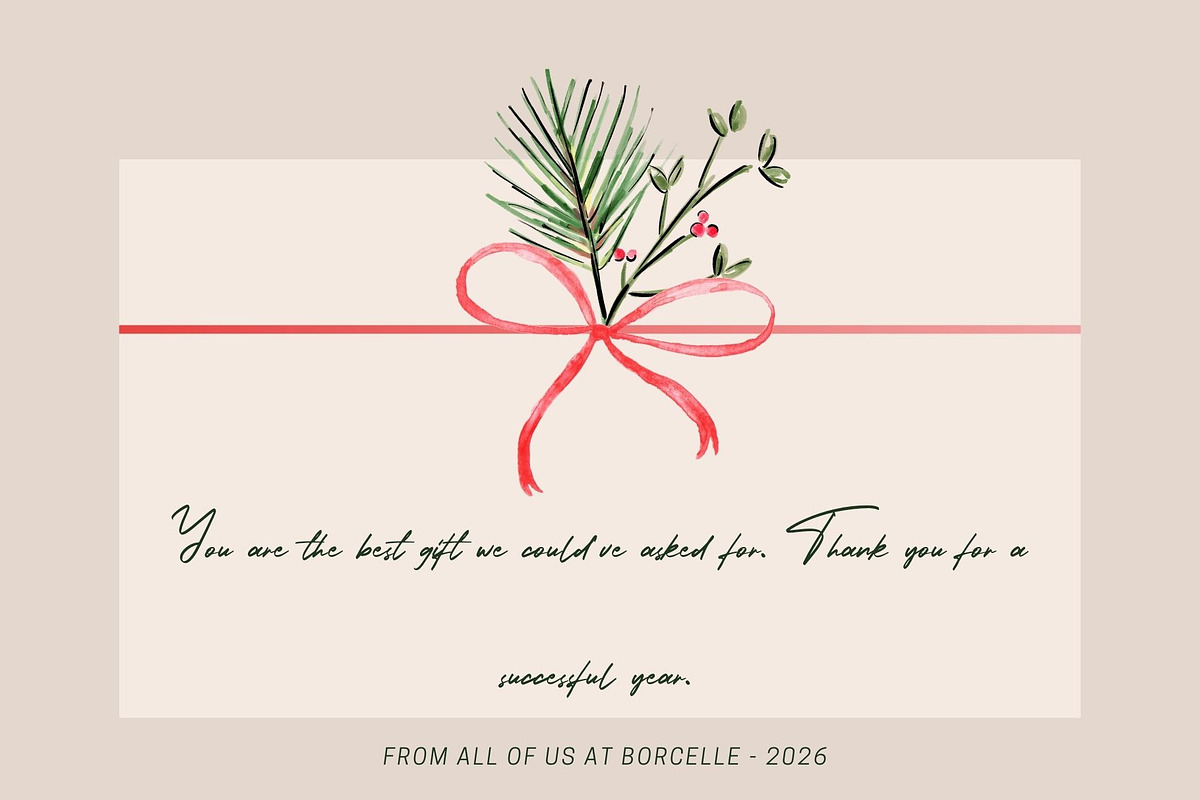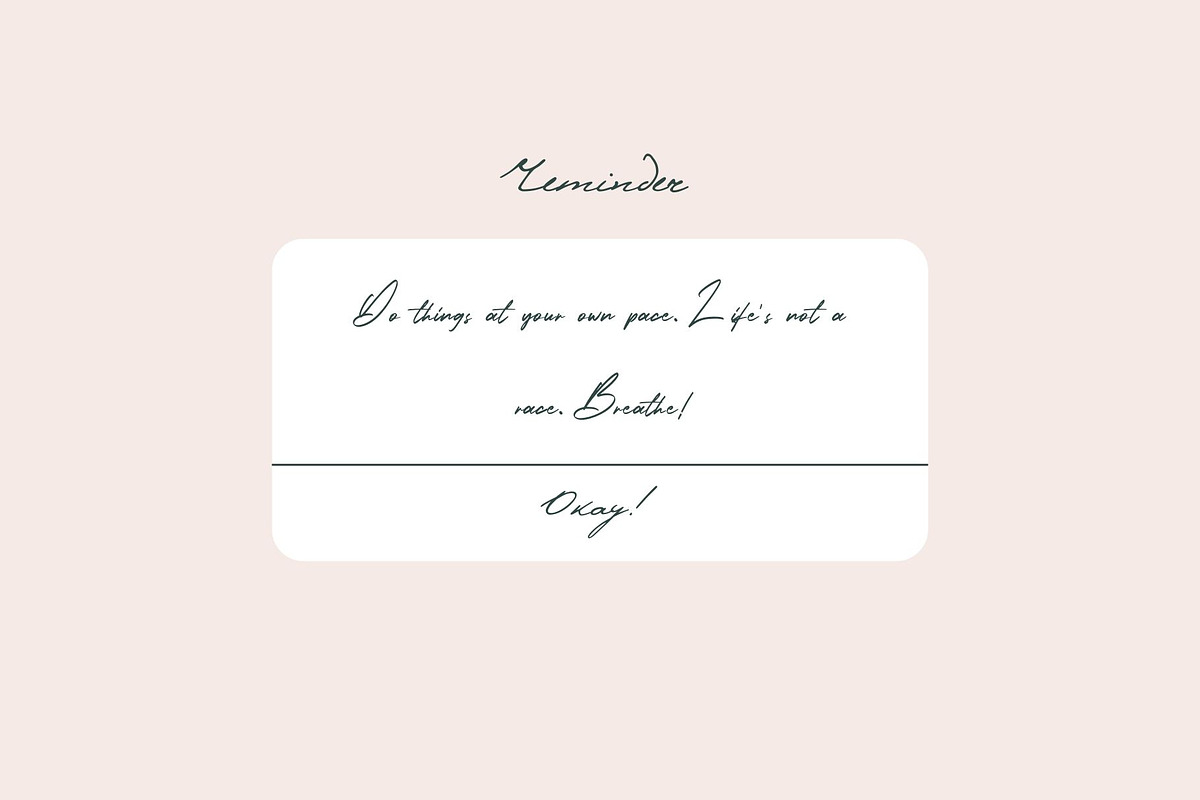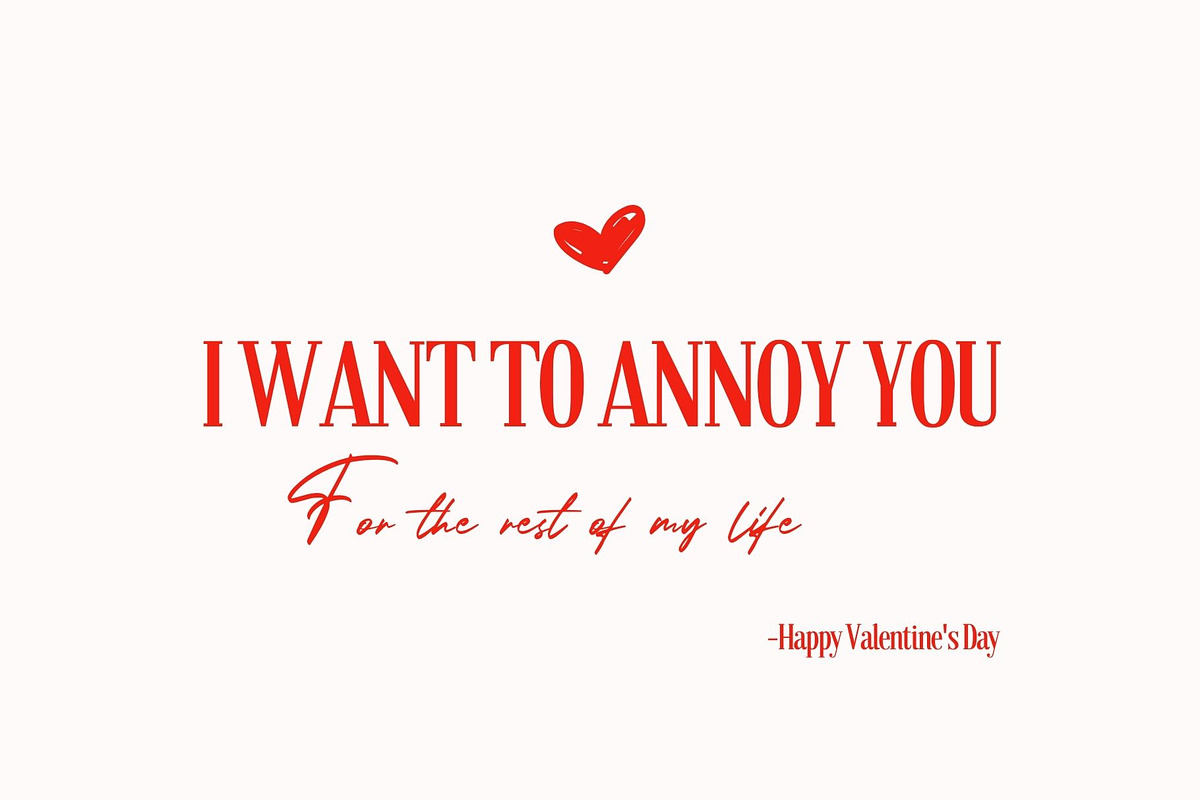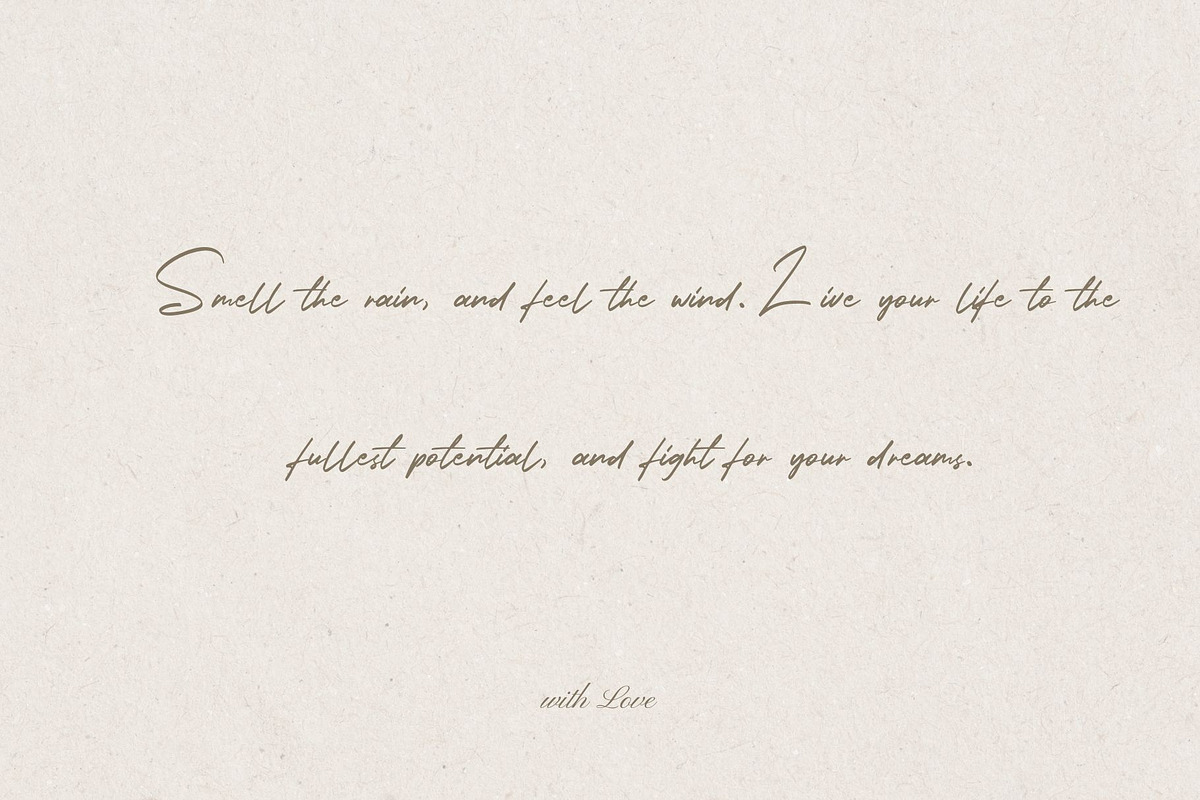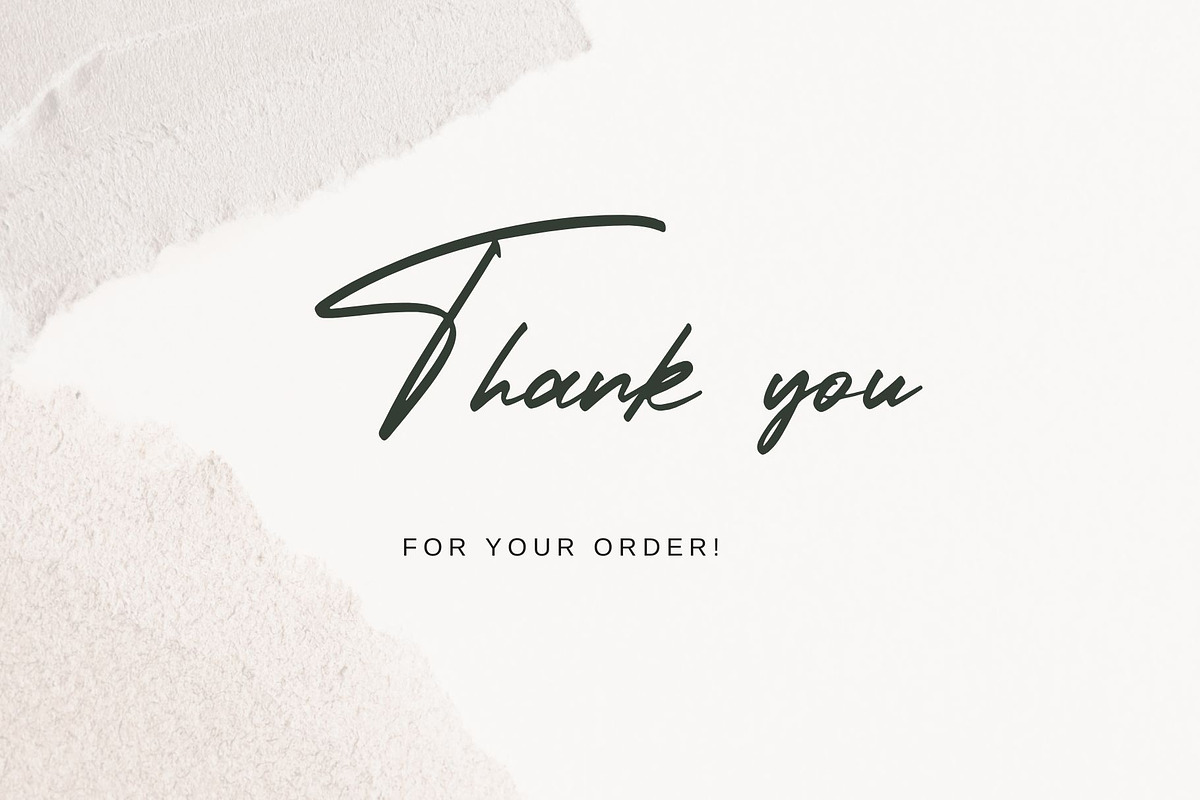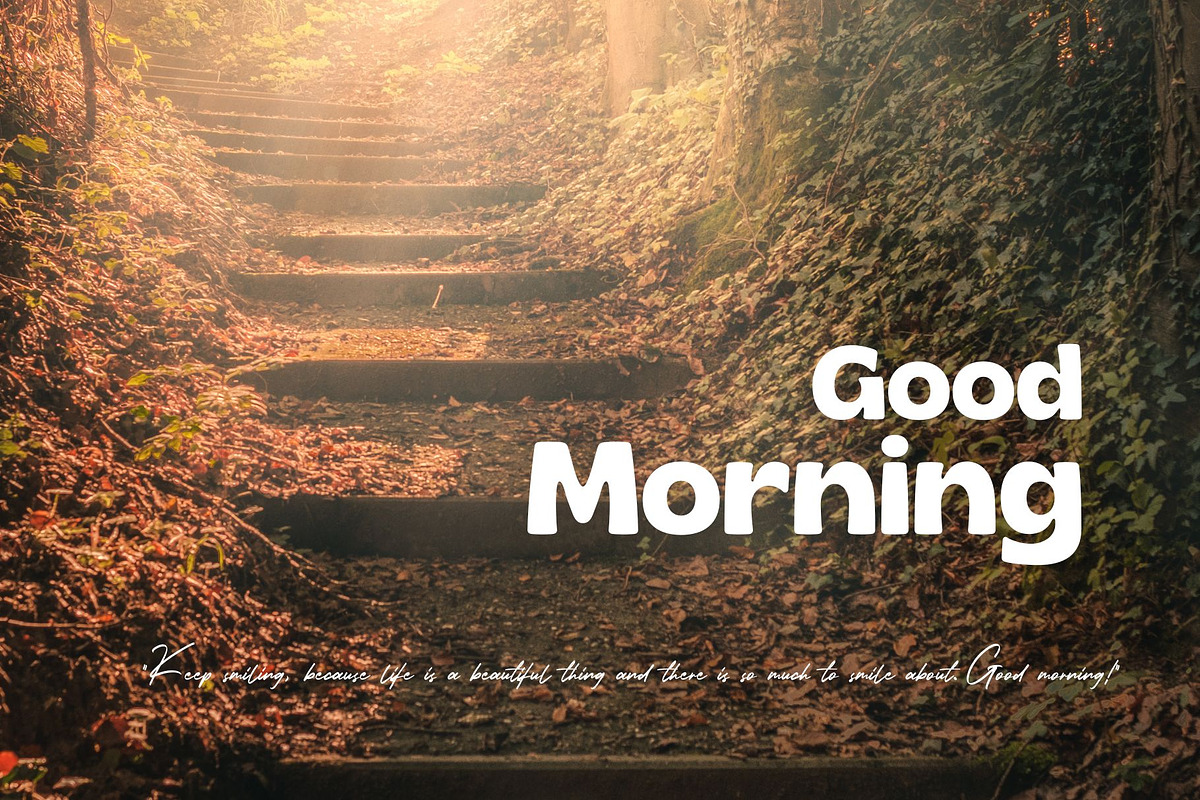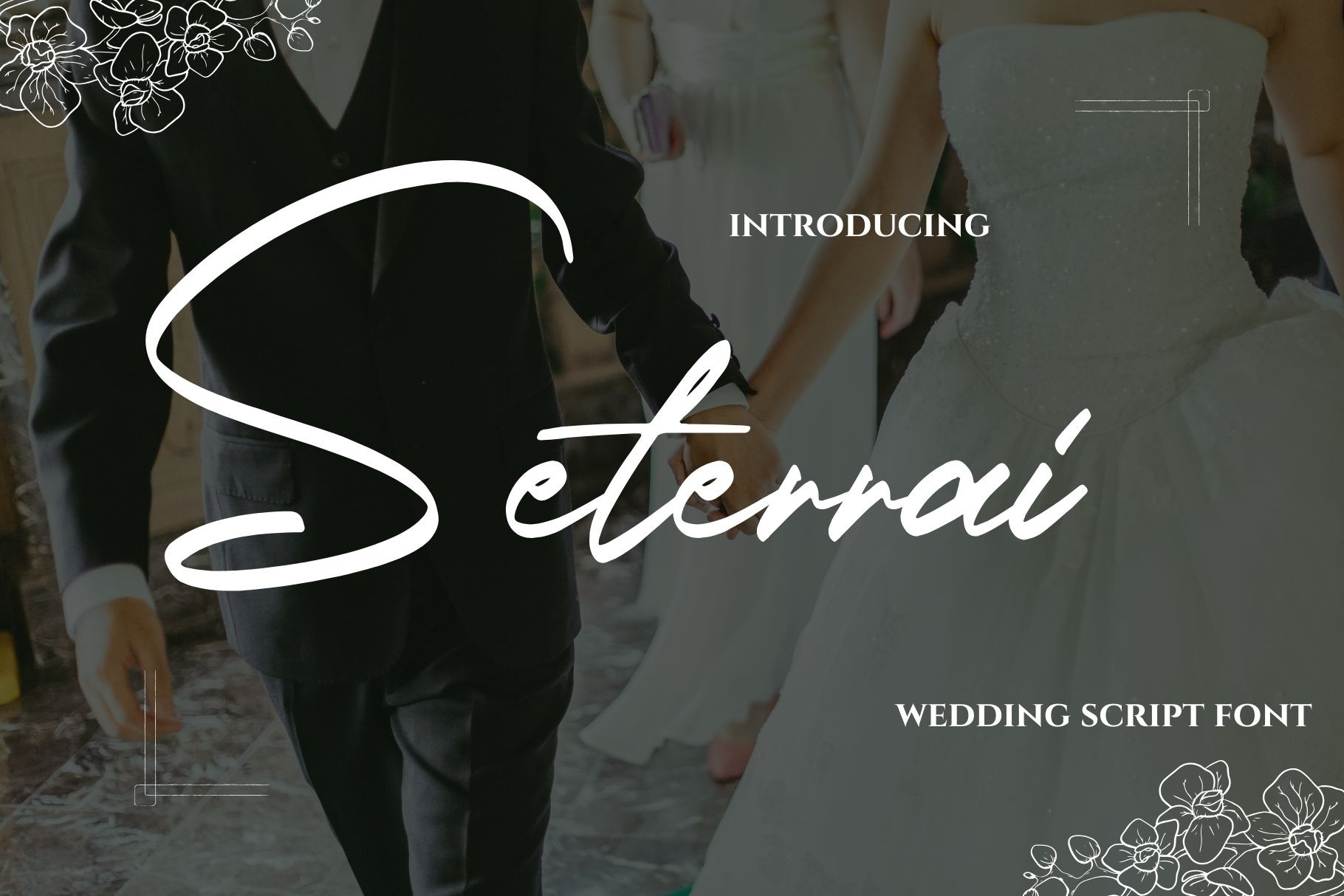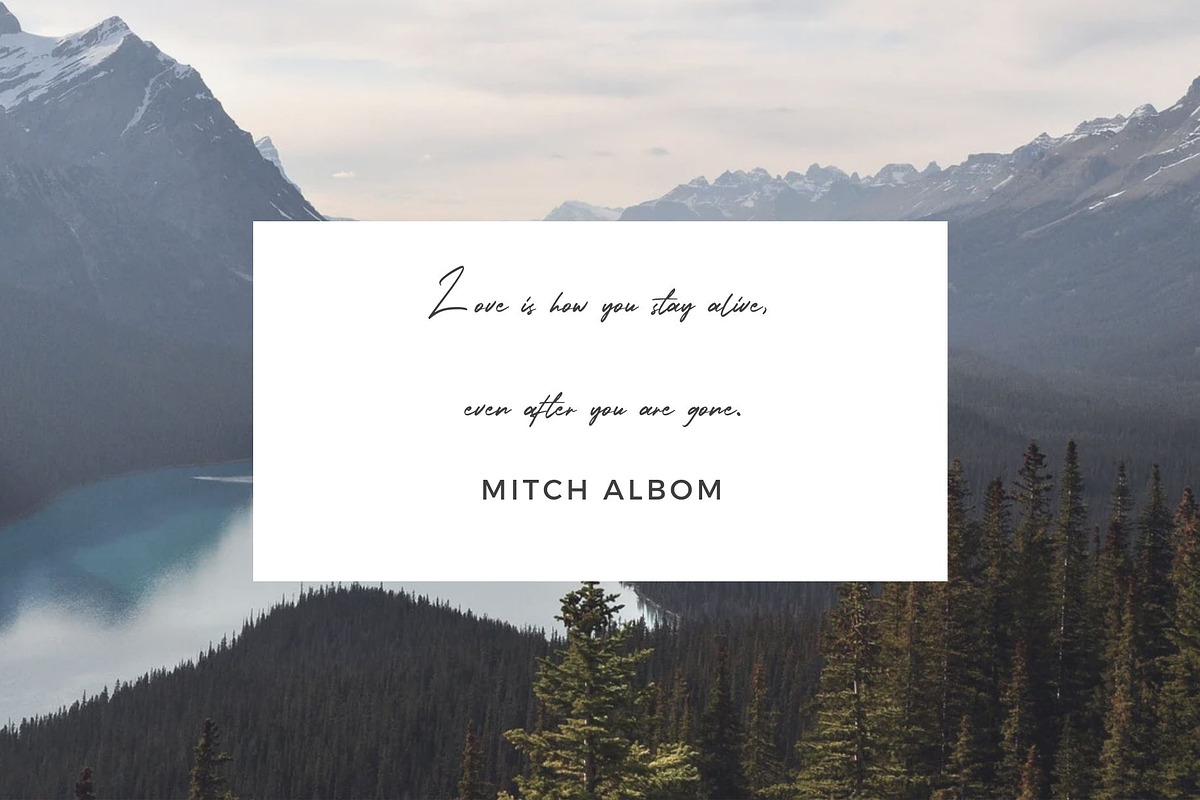
Seterrai-Wedding font
This beautiful font is for those who are needing of elegance and stylish for their designs and particularly well suited for wedding invitations, cards and feminine branding.